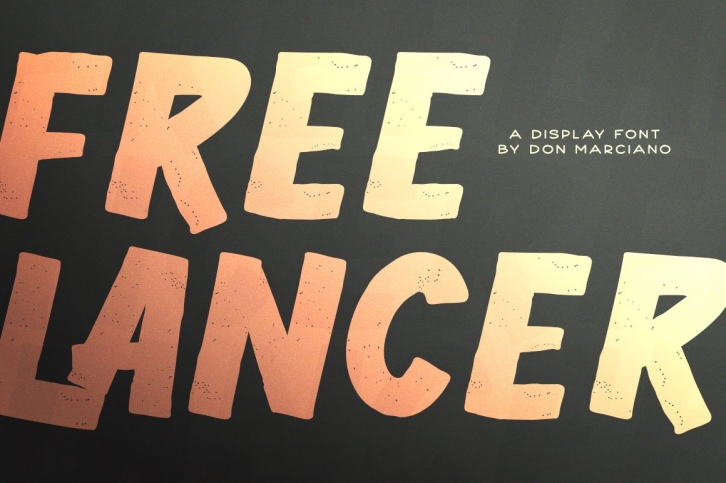
Freelancer is a bold weight textured font, I needed a display style that could adapt to almost any situation and be able to communicate with little effort as possible with print and digital in mind as the preferred media of choice, it’s designed with only caps in mind and seeks to be the go-to font when in doubt.